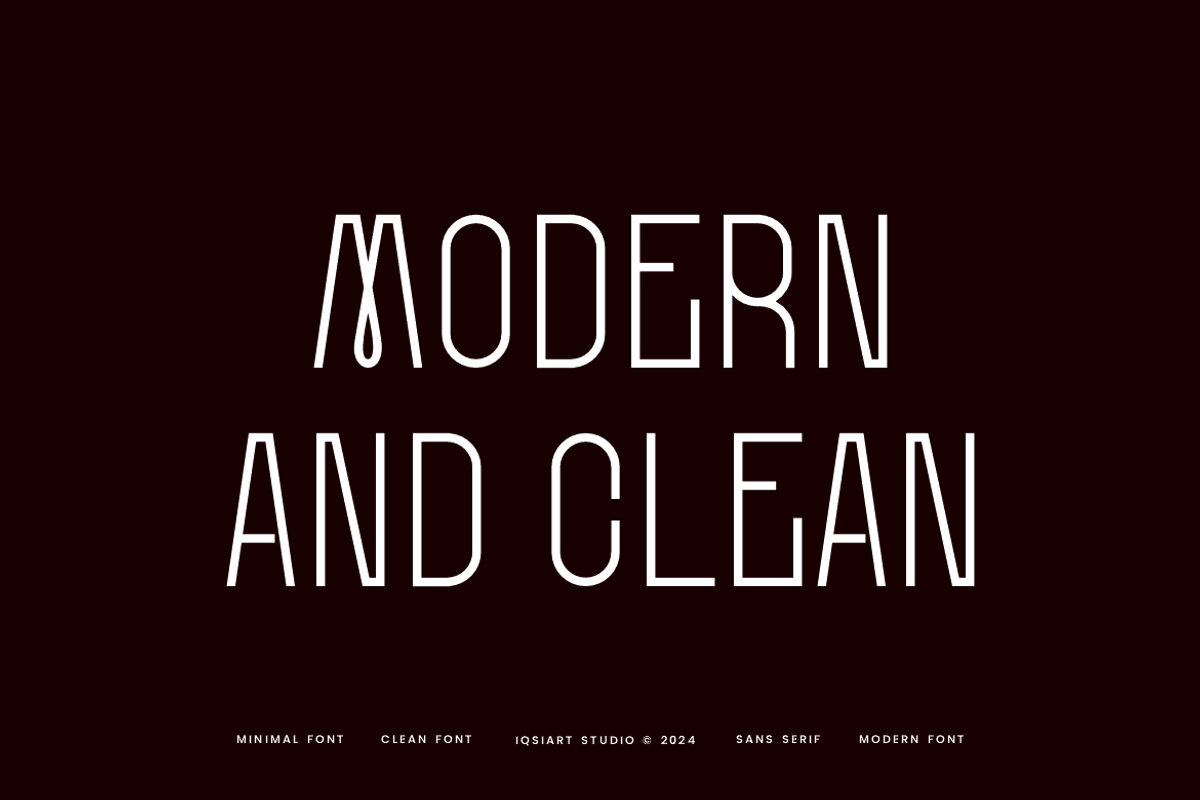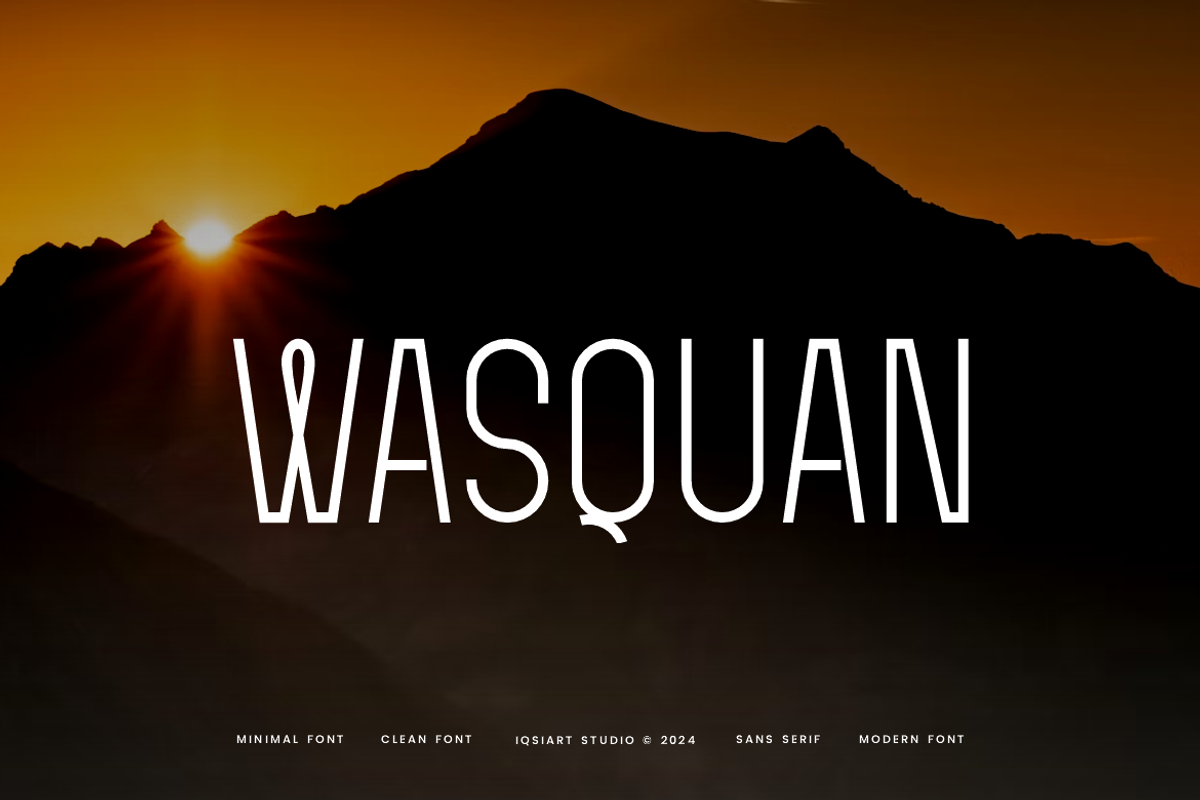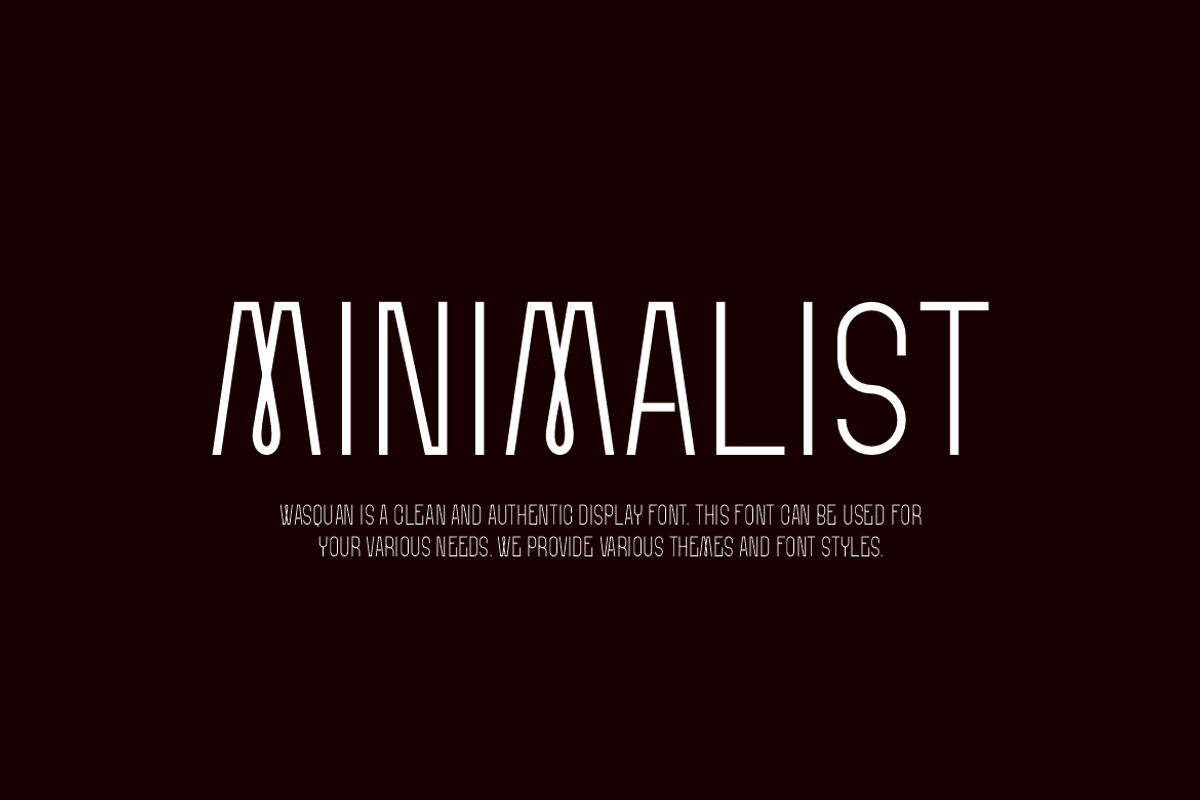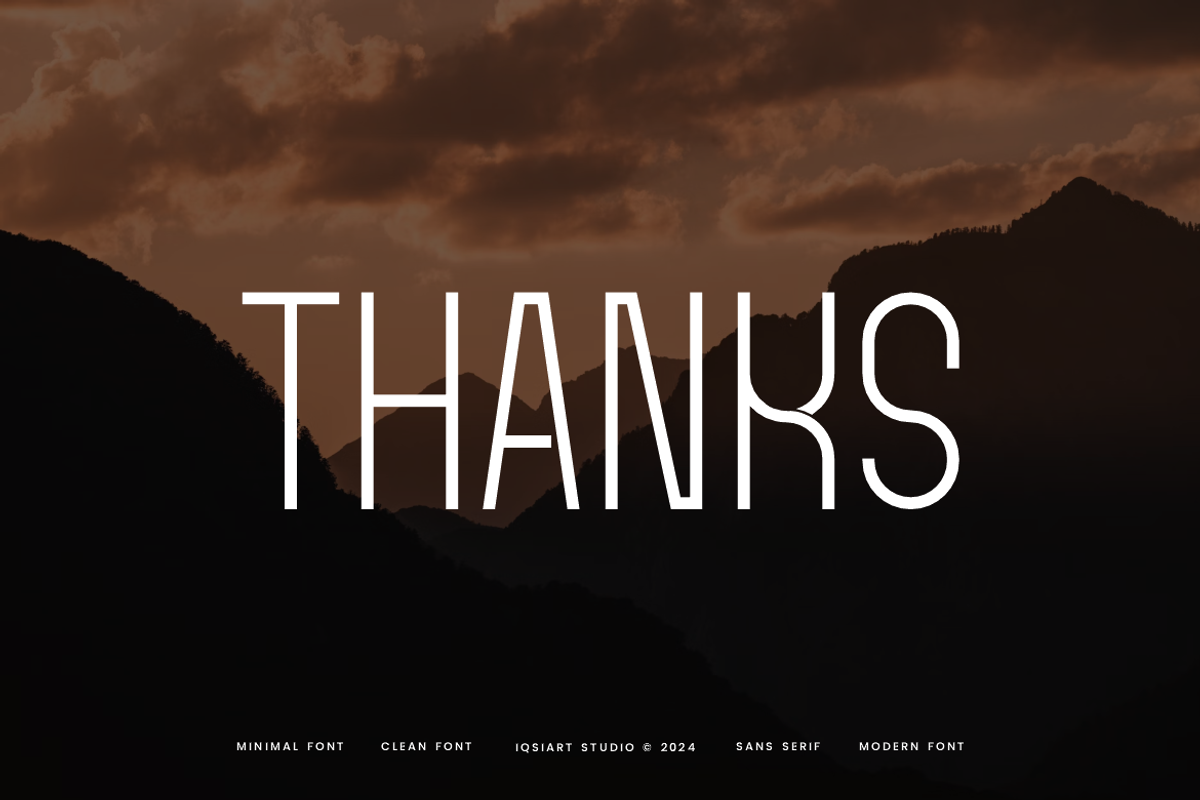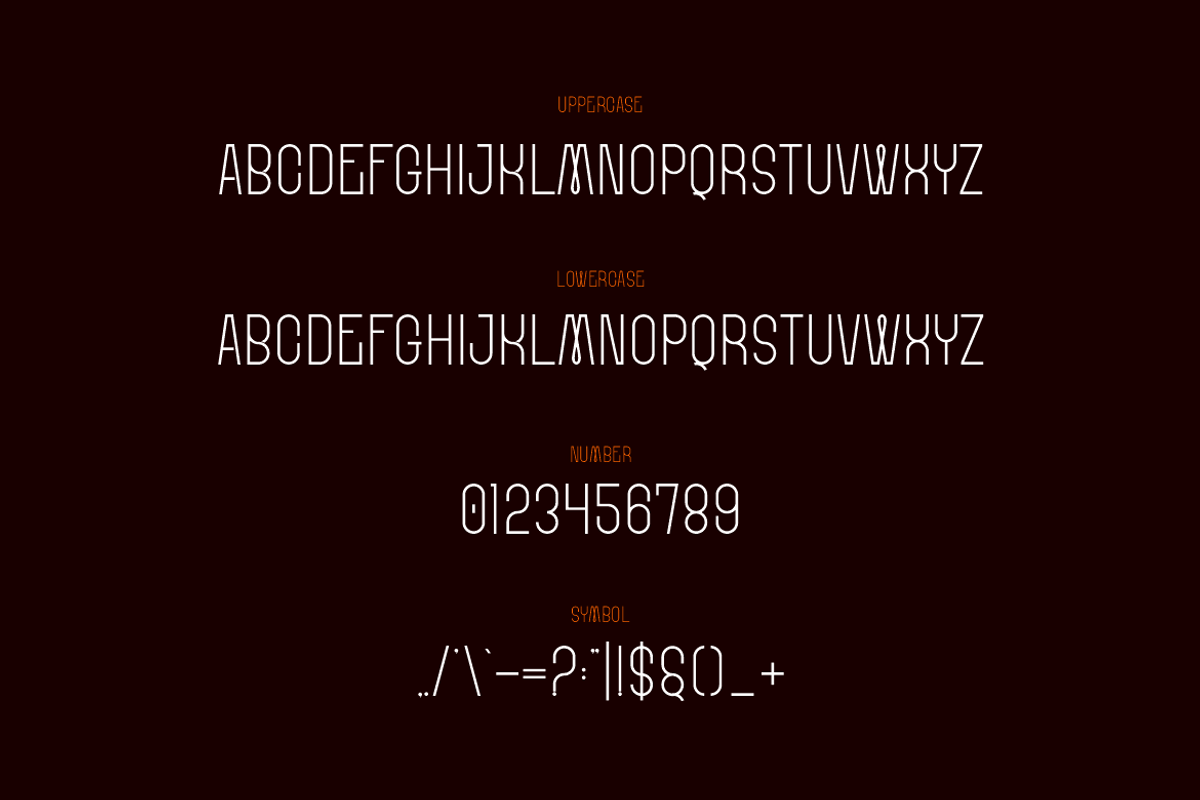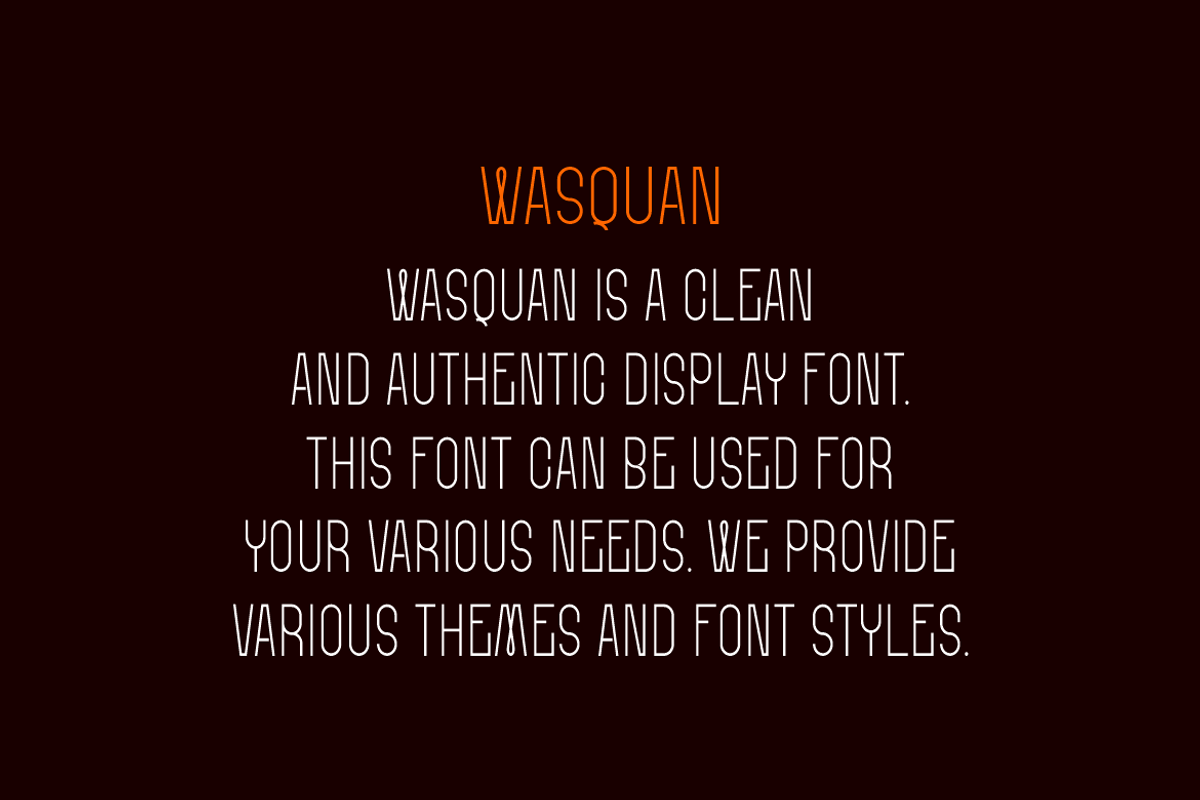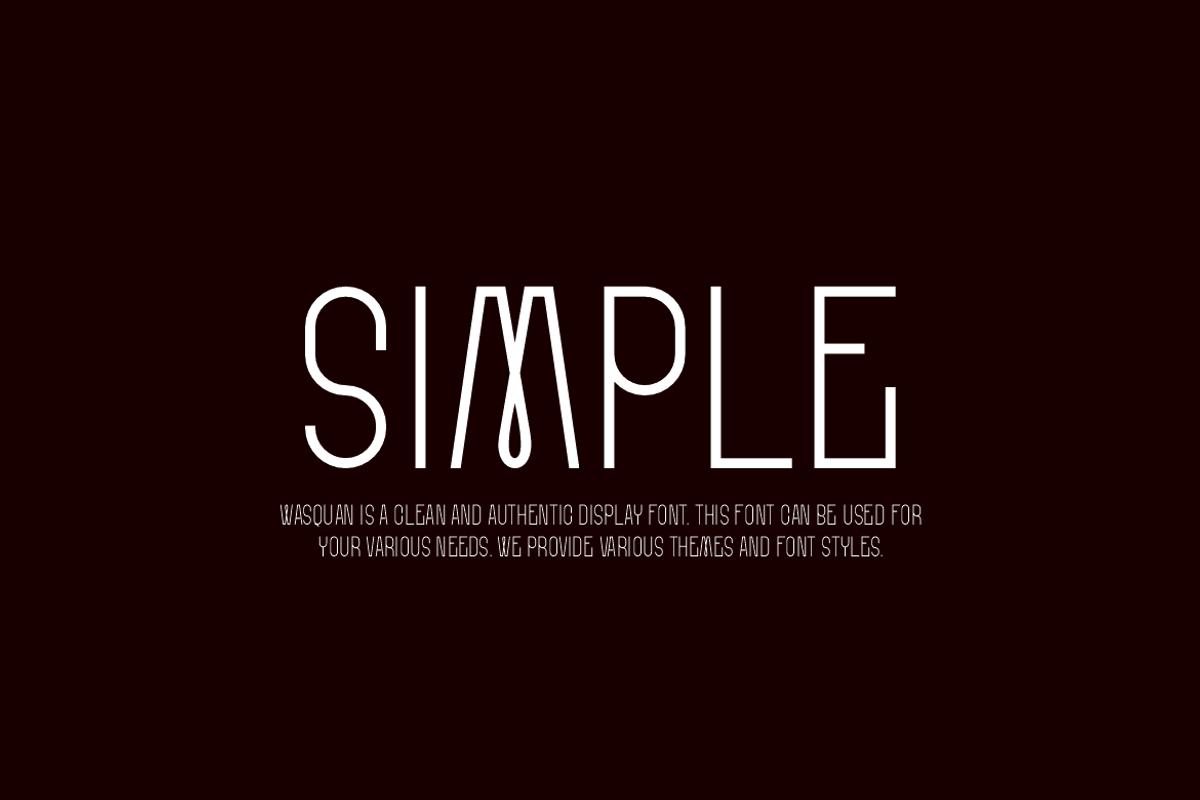
Wasquan - Minimal Font
Wasquan Font is a best and authentic display font. This font can be used for your various needs. We provide various themes and font styles. visit our profile to get a wide variety of themes and different font styles you need.